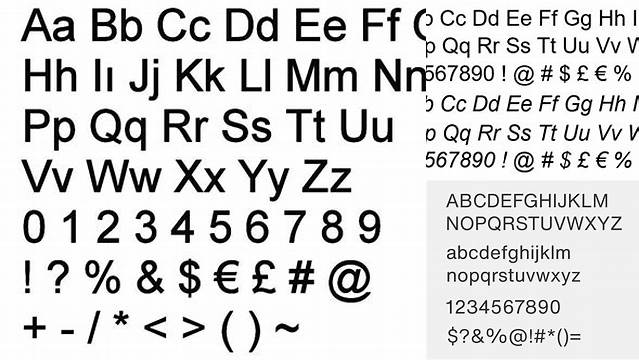
Arial Font Guide: Everything About Arial.ttf
Introduction to Arial Font
Hey guys! Let's dive deep into the world of fonts, specifically the Arial font, which is a ubiquitous typeface found on almost every computer system. If you've ever wondered about the file /library/fonts/arial.ttf, you're in the right place. This article will explore everything you need to know about this font file, its significance, and how it impacts your digital experience. Think of this as your comprehensive guide to understanding Arial, from its historical roots to its technical specifications. Arial is more than just a font; it's a crucial element of digital communication, shaping how we perceive text on screens and in print. Understanding the intricacies of fonts like Arial can help you appreciate the finer details of typography and design. So, let's get started and unravel the mysteries behind /library/fonts/arial.ttf!
What is arial.ttf?
So, what exactly is arial.ttf? Well, the .ttf extension indicates that it's a TrueType font file. TrueType is a font standard developed by Apple and Microsoft in the late 1980s, designed to provide high-quality fonts across different platforms. arial.ttf specifically refers to the Arial typeface in this format. Think of it as the digital blueprint for the Arial font, containing all the necessary instructions and data for your computer to display the font correctly. When you see Arial in a document, website, or application, your system is essentially reading the instructions embedded in the arial.ttf file. This file includes outlines for each character, as well as hinting information that helps render the font clearly at various sizes and resolutions. Understanding the technical details of arial.ttf is crucial for anyone involved in graphic design, web development, or digital publishing. Without this file, the Arial font would not be available on your system, highlighting its importance in the digital world.
History and Origin of Arial Font
Let's take a quick trip down memory lane, guys, and explore the history of the Arial font. It's a bit of a controversial story, actually! Arial was created by a team at Monotype in 1982. The font was initially designed as a competitor to Helvetica, a widely used sans-serif typeface. Some say Arial was intended as a more cost-effective alternative, particularly for early laser printers. The key difference and controversy lies in Arial's close resemblance to Helvetica, leading many to accuse it of being a clone. However, Arial does have its own distinct characteristics, such as subtle variations in letter shapes and spacing. Its widespread adoption came with its inclusion in Microsoft Windows, making it a default font for millions of users. The historical context of Arial is fascinating because it shows how market forces and technical considerations can influence the evolution of typography. Understanding the origin story helps us appreciate the significance of Arial in the broader landscape of font design.
Importance of Arial in Digital Typography
Why is Arial so important in the realm of digital typography? Well, its prevalence is a big part of it. Being a standard font on Windows and other operating systems means Arial is virtually ubiquitous. This makes it a safe choice for designers and content creators who want their text to be legible across different devices and platforms. Arial’s clean, sans-serif design also contributes to its readability, especially in digital environments where screen resolutions can vary. The font’s neutral appearance makes it suitable for a wide range of applications, from body text in documents to headlines on websites. Plus, its familiarity means that readers can quickly process the information without being distracted by overly stylized characters. The importance of Arial extends beyond mere convenience; it’s a foundational element in ensuring clear and accessible communication in the digital age. By providing a reliable and universally recognized typeface, Arial plays a critical role in shaping how we interact with text online.
Arial Font Variations: Regular, Bold, Italic, and Bold Italic
Arial isn’t just one font; it comes in several variations, each with its own distinct style. The most common variations are Regular, Bold, Italic, and Bold Italic. Arial Regular is the standard version, used for body text and general purposes. Arial Bold is a heavier version, used for emphasis and headings. Arial Italic is a slanted version, used for highlighting specific words or phrases. And Arial Bold Italic combines both bold and italic styles for even stronger emphasis. Understanding these variations allows you to use Arial effectively in your designs and documents. Each style serves a different purpose, and knowing when to use them can significantly improve the readability and visual appeal of your text. Exploring the font variations lets you appreciate the versatility of Arial and how it can be adapted to suit different design needs.
Arial vs. Helvetica: Key Differences
Let's address the elephant in the room: Arial vs. Helvetica. These two fonts are often compared, and sometimes even confused, because they look so similar. However, there are key differences. Helvetica, designed in 1957 by Max Miedinger, has a more uniform stroke weight and a slightly more compact appearance. Arial, on the other hand, has subtle variations in stroke weight and a more open, slightly wider look. The differences are subtle, but noticeable to a trained eye. For example, the terminals (the ends of strokes) in Arial are often cut at an angle, while in Helvetica they are typically horizontal. Knowing these differences can help you make informed decisions about which font to use in your projects. Comparing Arial and Helvetica is a common topic in typography, highlighting the importance of understanding subtle nuances in font design.
Arial: A Font for All Seasons and Situations
In conclusion, guys, Arial truly is a font for all seasons and situations. Its reliability, legibility, and widespread availability make it a valuable tool for designers, writers, and anyone who communicates through text. While it may not be the most exciting font in the world, its versatility is undeniable. From business documents to websites to graphic designs, Arial continues to play a vital role in shaping our digital and printed communications. Its history, evolution, and ongoing relevance make it a fascinating subject in the world of typography. So, next time you see Arial, take a moment to appreciate its enduring presence and its contribution to clear and effective communication. Arial's versatility ensures its continued relevance in a wide range of applications.